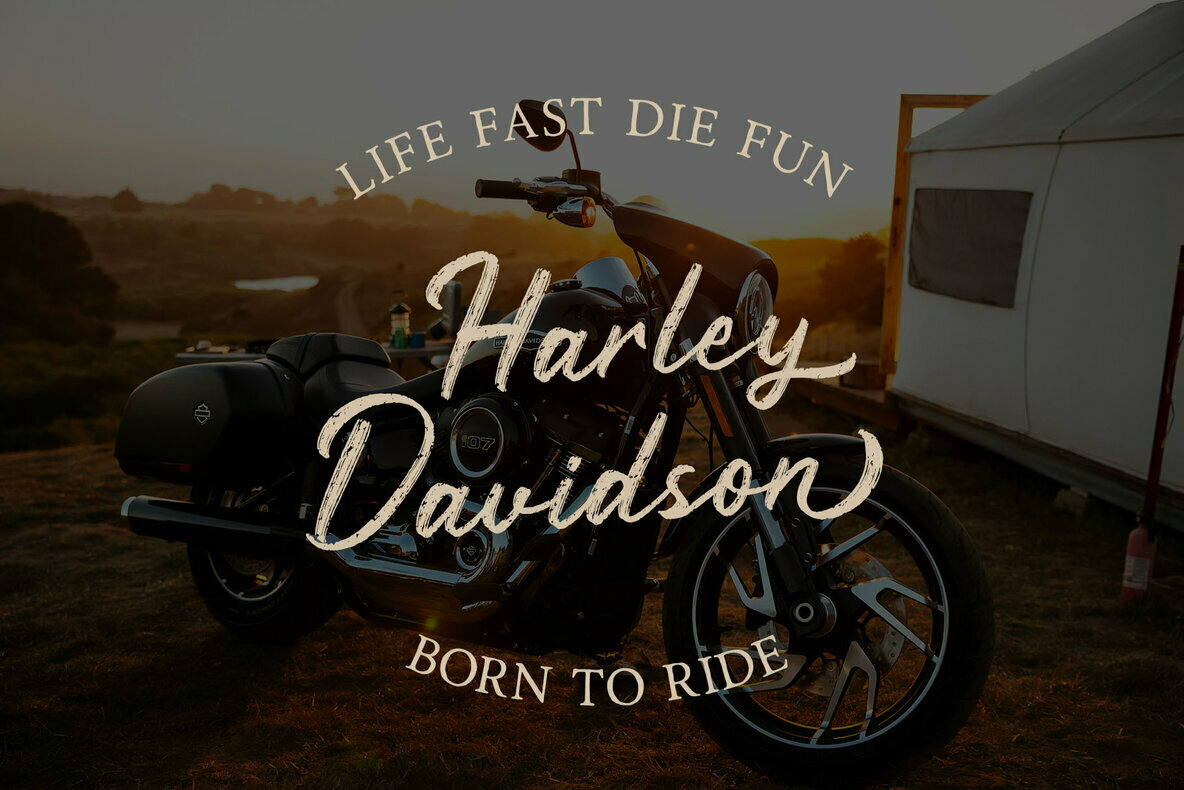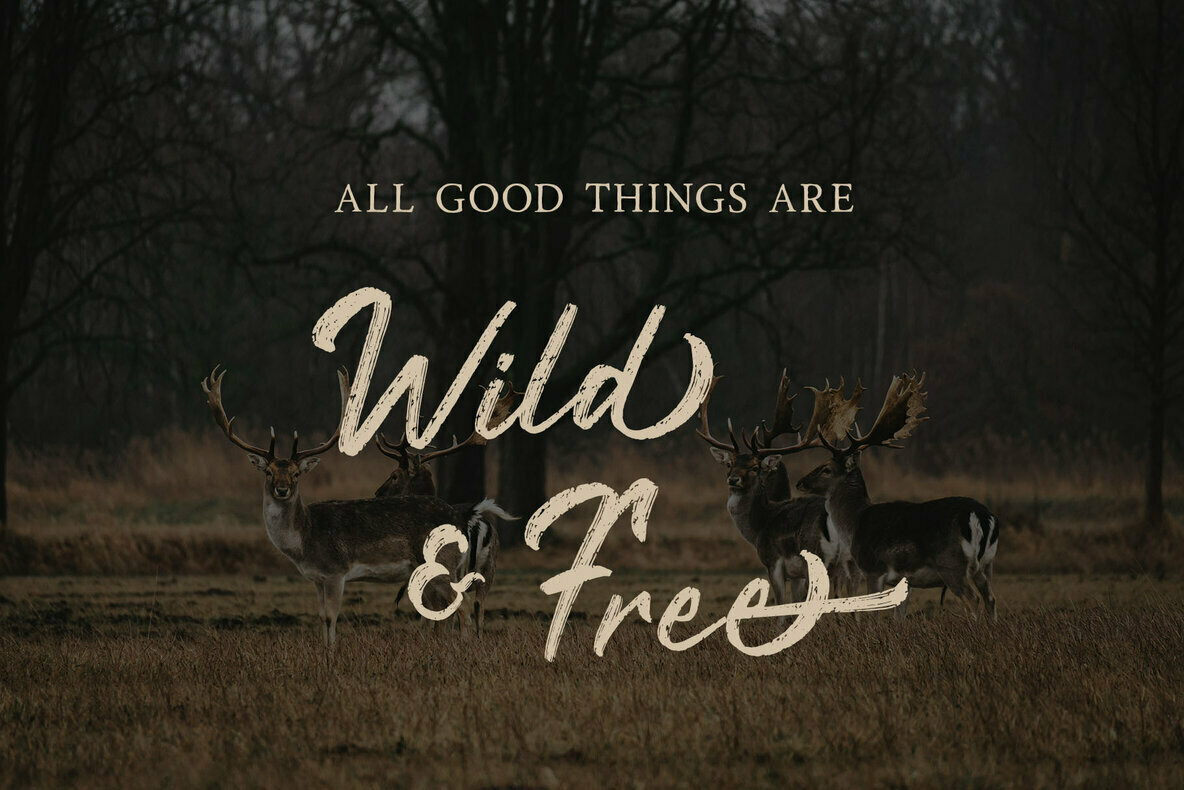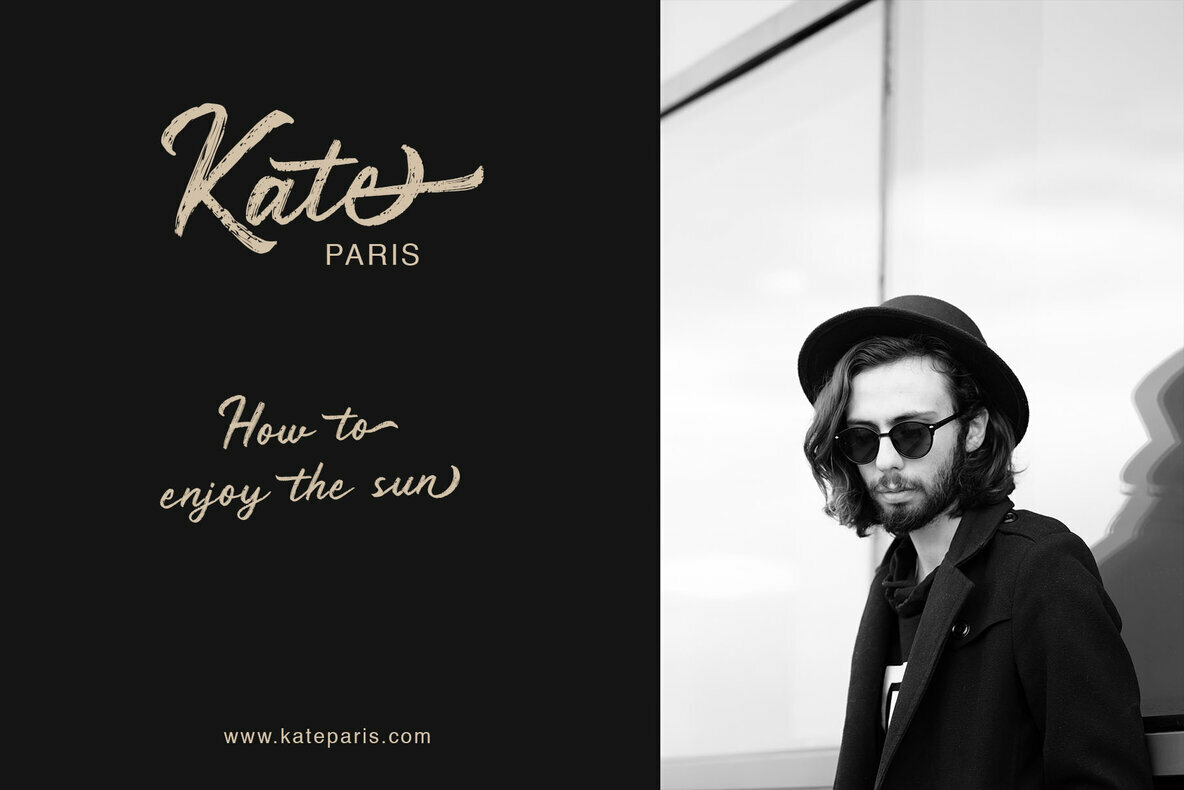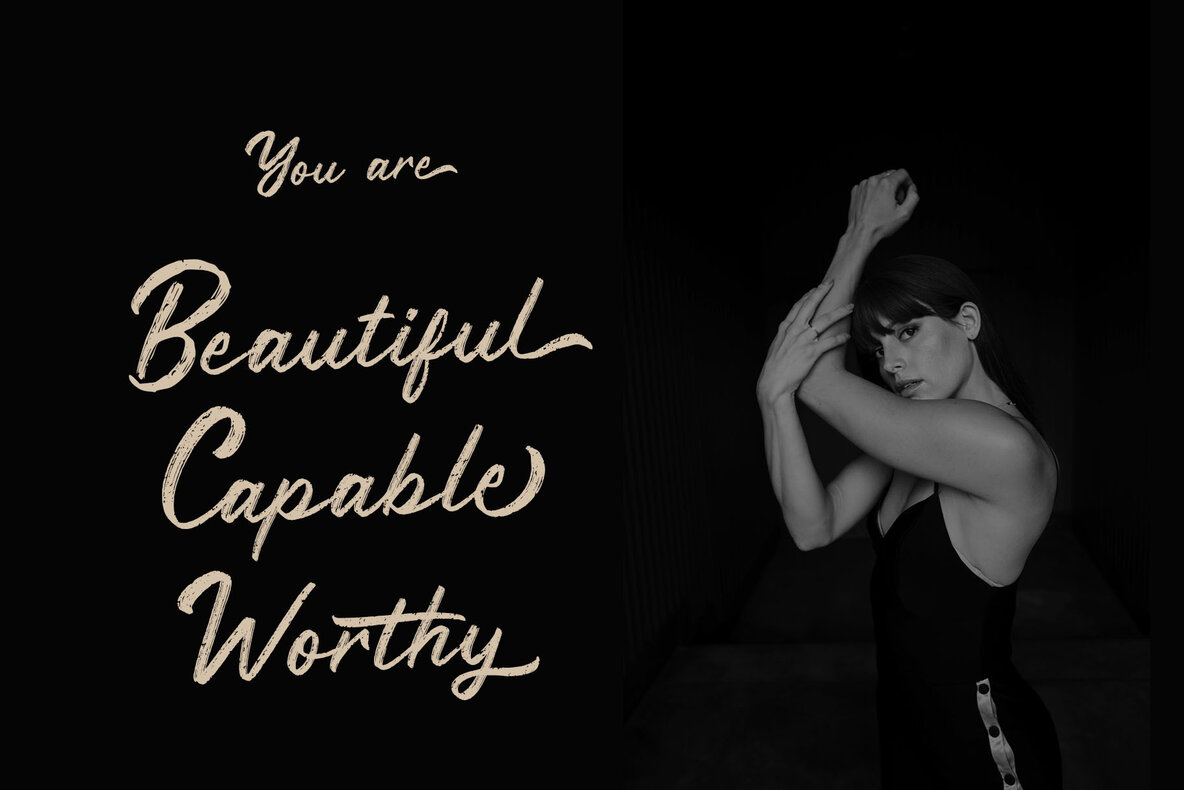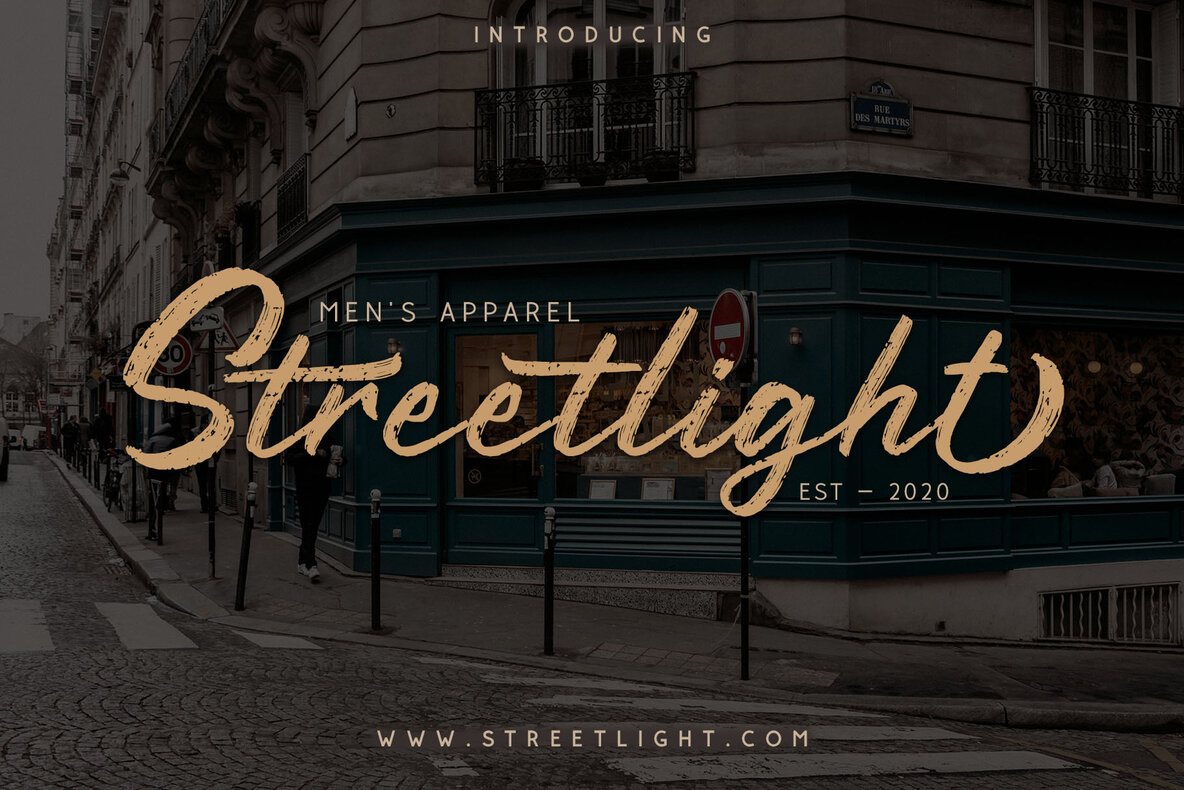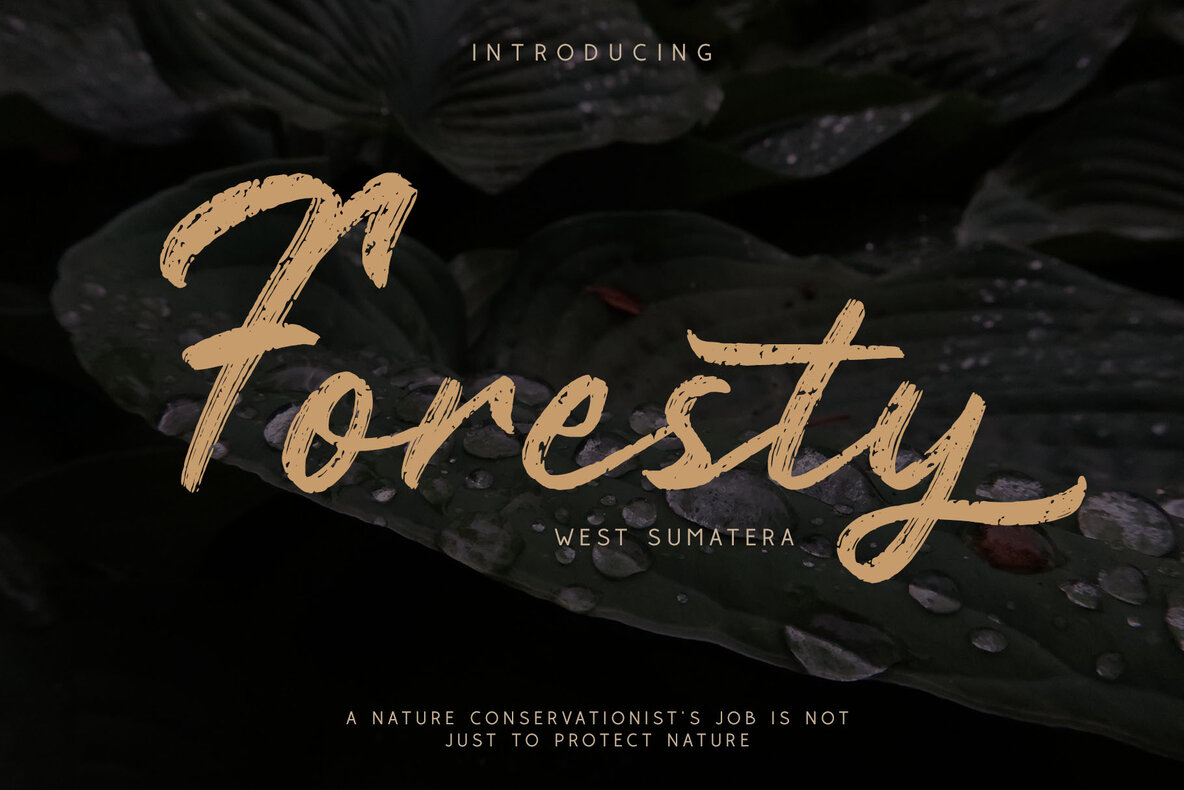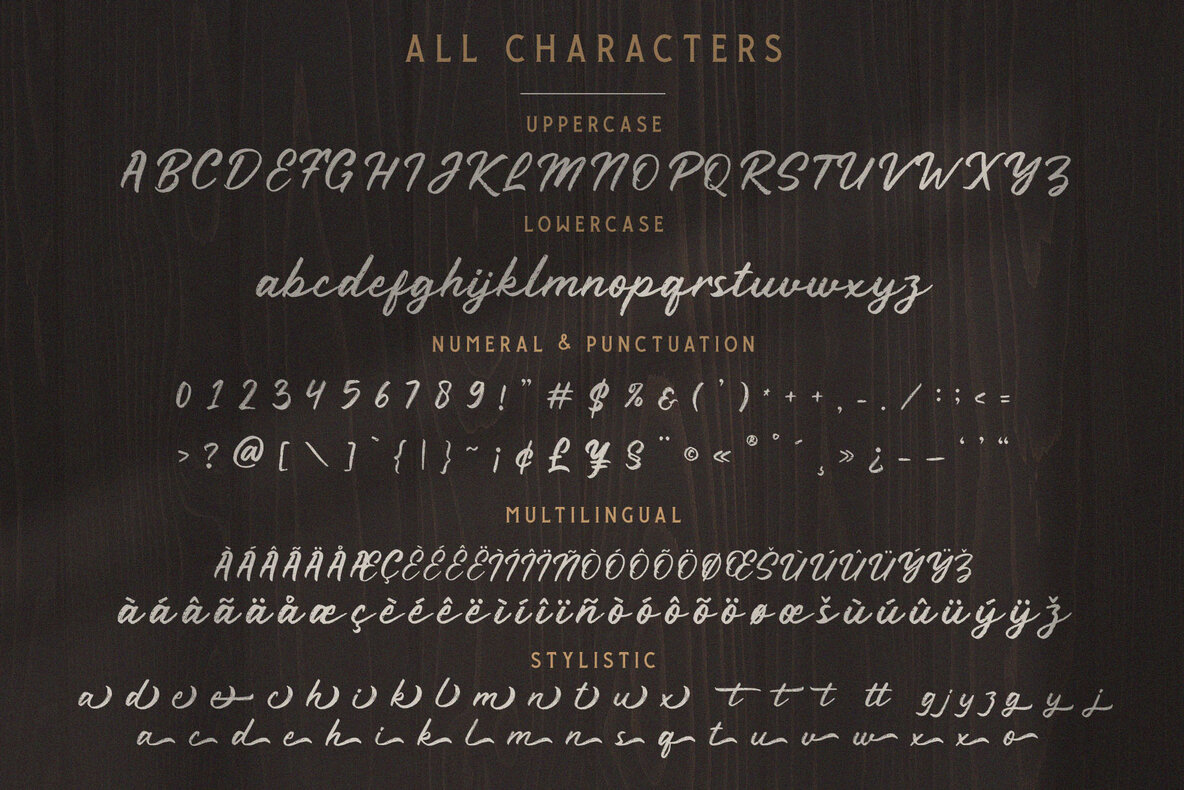
Rustyne Font
Rustyne
Dive into the aesthetic appeal of the Rustyne Rustic Script Font, a charismatic handwritten typeface that embodies the authentic nuances of genuine handwriting. This font is ideally suited for applications across fashion, e-commerce platforms, trend blogs, and wedding boutiques, offering a sophisticated touch for any brand aimed at an upscale and chic appearance. Its versatility extends to a variety of design elements including logos, greeting cards, and quotes. Rustyne is equally adept in crafting memorable posters, personalized stationery, and evocative book designs. Whether you are emphasizing a hand-drawn watercolor theme or pursuing an elegant craft design, this font does not compromise on style or trendiness, making it a go-to choice for DIY projects and creative undertakings.Rustyne: Handcrafted Rustic Script Font